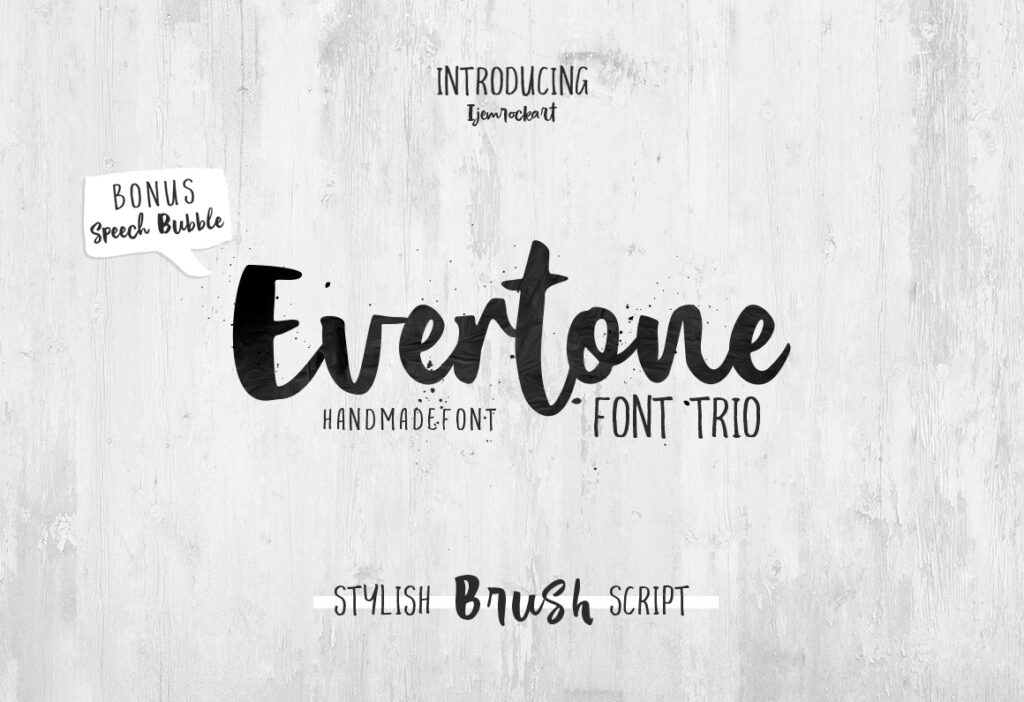
Evertone Font: A Beautiful Hand-Lettered Font for Romantic and Feminine Projects
The Evertone font is a stunning hand-lettered typeface that has gained popularity among designers and crafty individuals alike. Its unique, authentic feel and bold imperfections make it an ideal choice for romantic and femininely oriented projects. In this article, we’ll dive into the world of Evertone font, exploring its features, uses, and benefits, as well as provide tips on how to make the most of this beautiful font.
What Makes Evertone Font Special?
Evertone font is a hand-lettered typeface that boasts a distinctive, organic look. Its authentic feel and bold imperfections give it a unique charm that sets it apart from other fonts. Here are some of the key features that make Evertone font special:
- Hand-lettered authenticity: Evertone font is carefully crafted by hand, giving it a personal touch that’s hard to replicate with machine-generated fonts.
- Bold imperfections: The font’s imperfections, such as subtle variations in line width and letterform, add to its charm and character.
- Romantic and feminine feel: Evertone font exudes a sense of romance and femininity, making it perfect for projects that require a touch of elegance and sophistication.
- Versatility: The font works well in both digital and print designs, making it a versatile choice for a wide range of applications.
How to Use Evertone Font in Your Projects
Evertone font is a versatile typeface that can be used in a variety of projects, from romantic and feminine designs to more bold and experimental ones. Here are some ideas on how to use Evertone font in your projects:
- Wedding and event designs: Evertone font is perfect for wedding invitations, save-the-date cards, and other event-related designs that require a touch of romance and elegance.
- Fashion and beauty branding: The font’s feminine and sophisticated feel makes it an excellent choice for fashion and beauty brands looking to create a luxurious and high-end image.
- Digital and print advertising: Evertone font can be used in digital and print ads to add a touch of personality and whimsy to your marketing campaigns.
- Packaging design: The font’s bold imperfections and authentic feel make it a great choice for packaging design, particularly for products that require a more personal and human touch.
The Benefits of Using Evertone Font
Evertone font offers a range of benefits that make it an attractive choice for designers and crafty individuals. Here are some of the advantages of using Evertone font:
- Unique and distinctive look: Evertone font’s hand-lettered authenticity and bold imperfections give it a unique and distinctive look that sets it apart from other fonts.
- Emotional connection: The font’s romantic and feminine feel can help create an emotional connection with your audience, making it perfect for projects that require a personal touch.
- Flexibility: Evertone font works well in both digital and print designs, making it a versatile choice for a wide range of applications.
- Ease of use: The font is easy to use and can be easily integrated into your design workflow.
Tips and Tricks for Using Evertone Font
Here are some tips and tricks to help you make the most of Evertone font:
- Experiment with font sizes and colors: Evertone font looks great in a variety of font sizes and colors. Experiment with different combinations to find the one that works best for your project.
- Pair with other fonts: Evertone font can be paired with other fonts to create a unique and interesting look. Try pairing it with a clean and simple sans-serif font for a bold and modern look.
- Use in combination with images: Evertone font looks great in combination with images, particularly those with a romantic and feminine feel.
- Pay attention to kerning and tracking: Make sure to pay attention to kerning and tracking when using Evertone font. Adjusting these settings can help improve the overall look and feel of your design.
Evertone font is a beautiful hand-lettered typeface that offers a unique and distinctive look. Its romantic and feminine feel, bold imperfections, and versatility make it an excellent choice for a wide range of projects. By following the tips and tricks outlined in this article, you can make the most of Evertone font and create stunning designs that capture the essence of your brand or project.